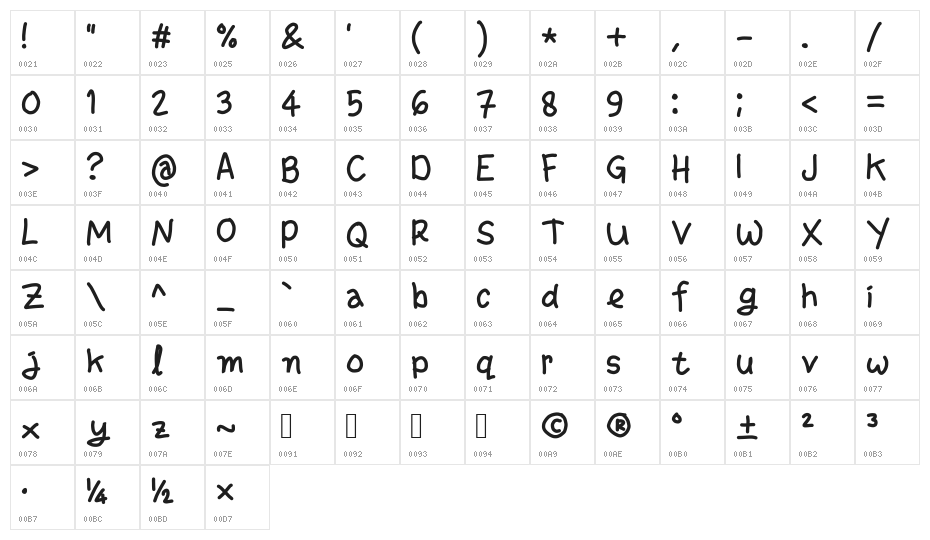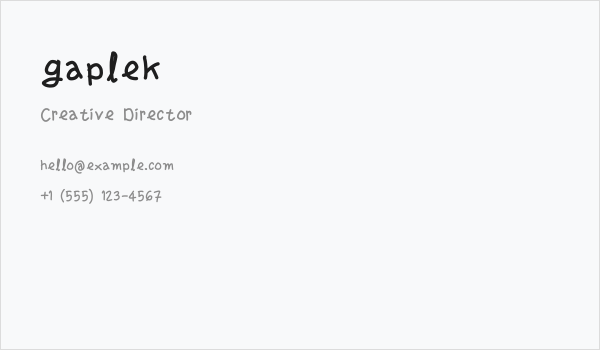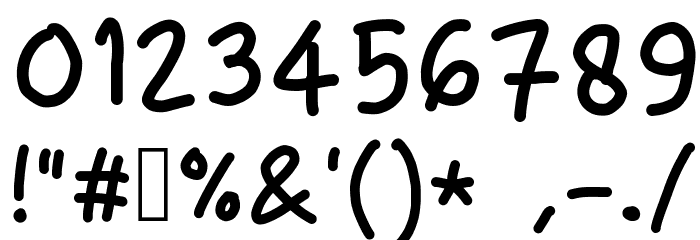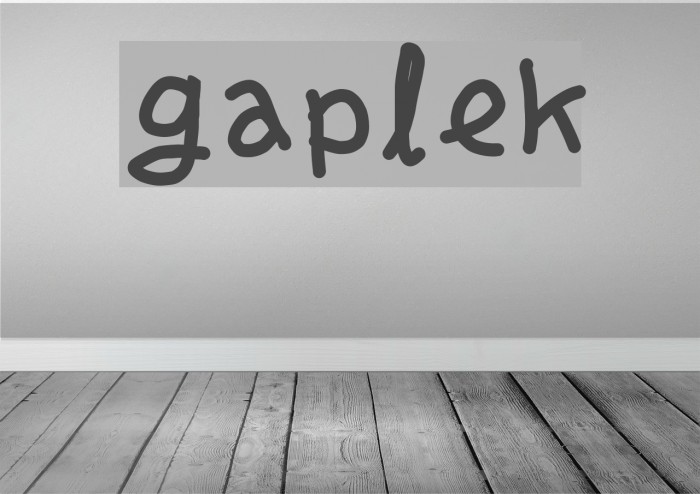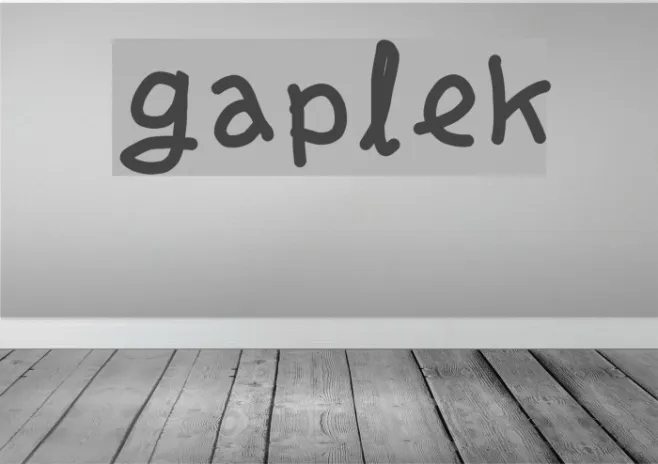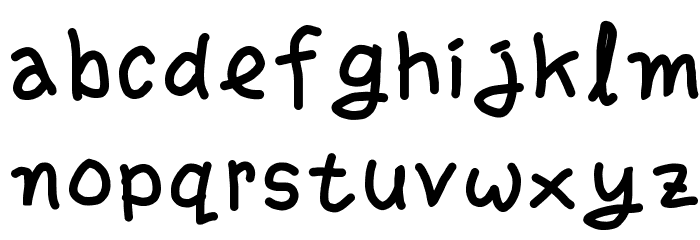
gaplek Font
gaplek Description
This playful and casual font features a handwritten style with a slightly irregular baseline, giving it a friendly and approachable appearance. The letters are rounded and bold, with a consistent stroke width that maintains readability. The uppercase and lowercase characters are well-balanced, and the numerals are clear and distinct. Special characters are included, enhancing its versatility for various uses. The font's informal style makes it suitable for projects that require a personal touch or a relaxed vibe.
| Proposed Projects | Ideal for greeting cards, children's books, casual branding, and social media graphics. |